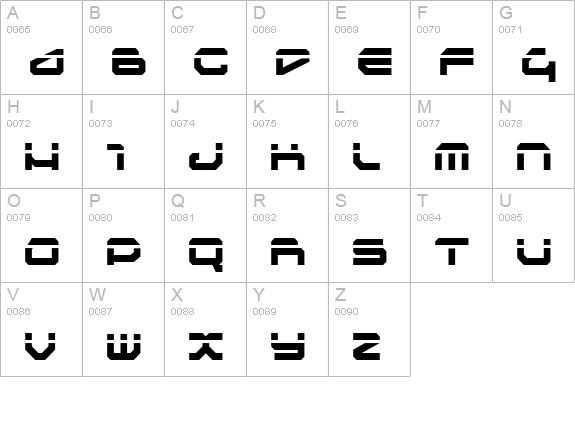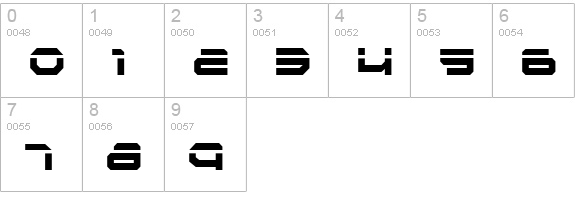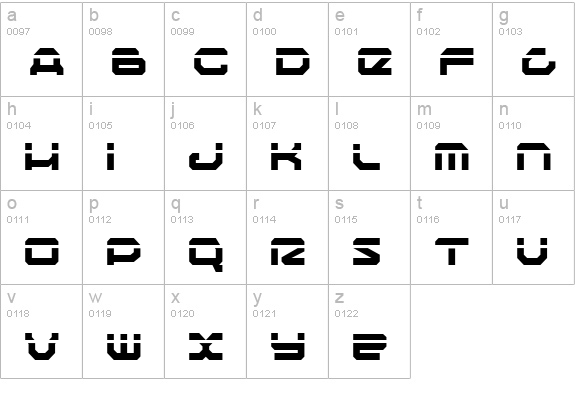
Traveler Laser is a striking and modern font that embodies a sense of adventure and exploration. With its sleek lines and futuristic design, this font is perfect for capturing the essence of travel and discovery. Its sharp, laser-like appearance gives it a unique edge, making it stand out in any design project. The best part? Traveler Laser is available for free download at FontsMarket.com. Whether you're working on a travel blog, a poster for an exotic destination, or a brochure for a new adventure, this font will add a touch of sophistication and style to your work. Don't miss out on the opportunity to enhance your designs with the bold and dynamic Traveler Laser font, now available for free at FontsMarket.com.